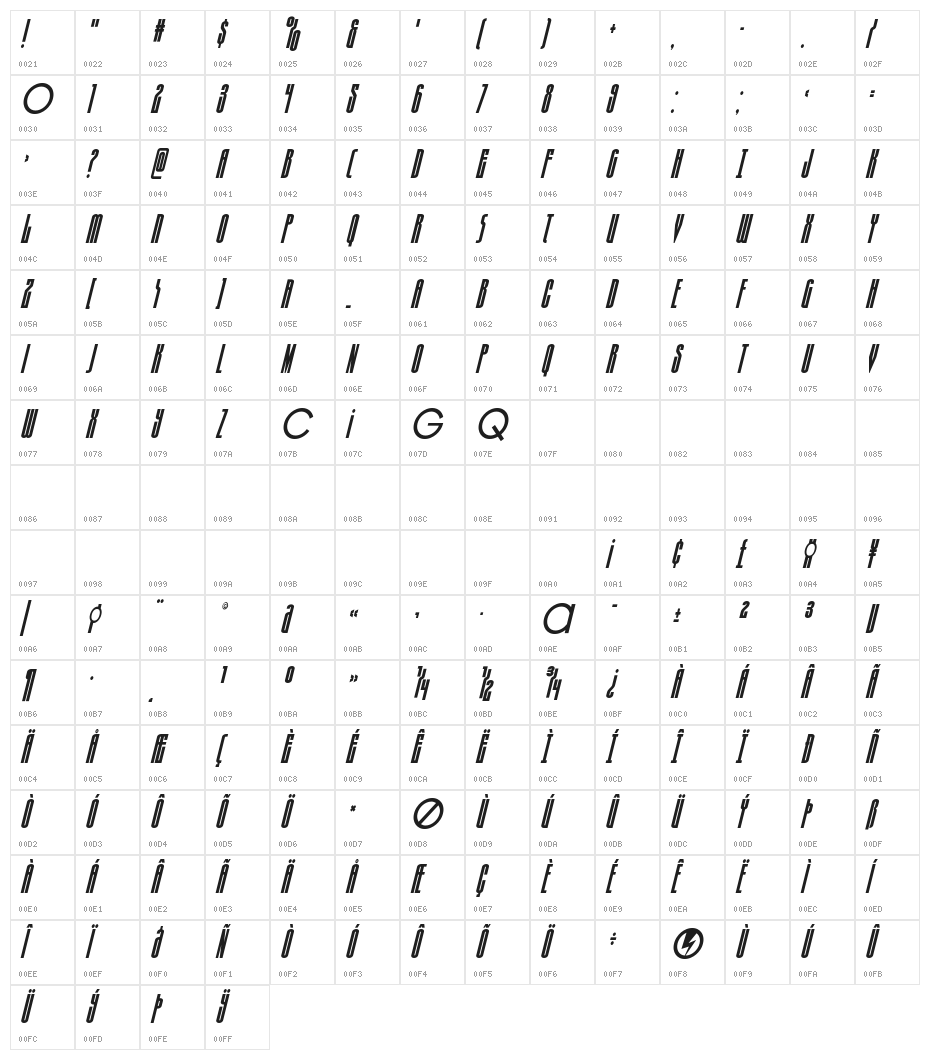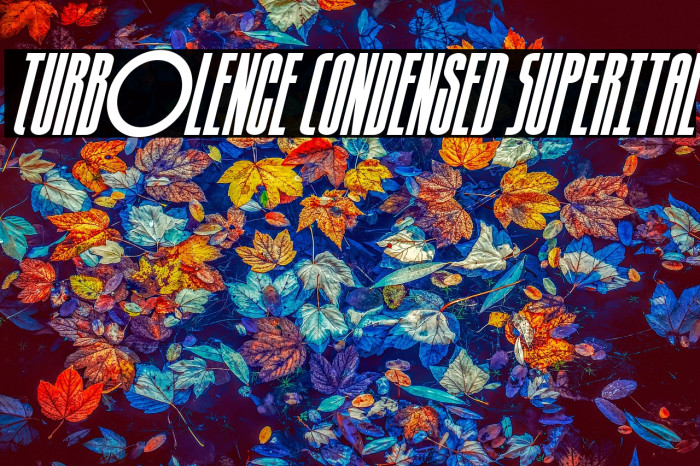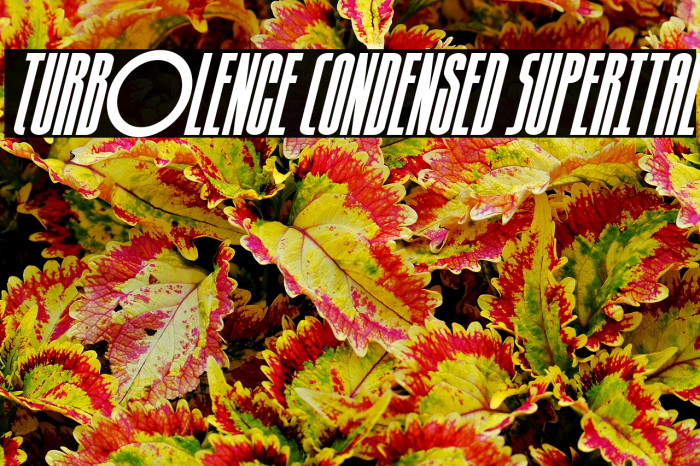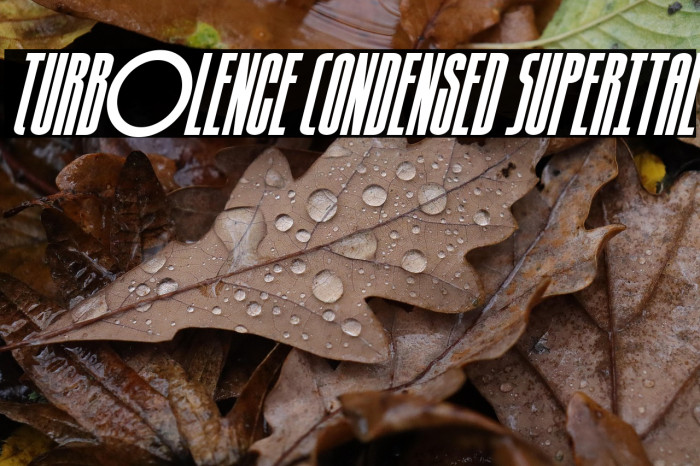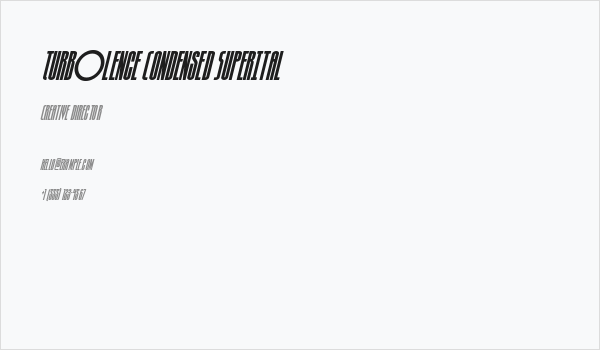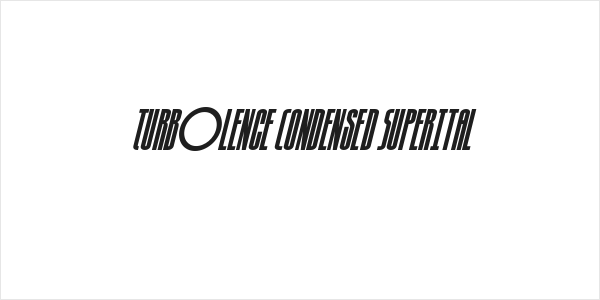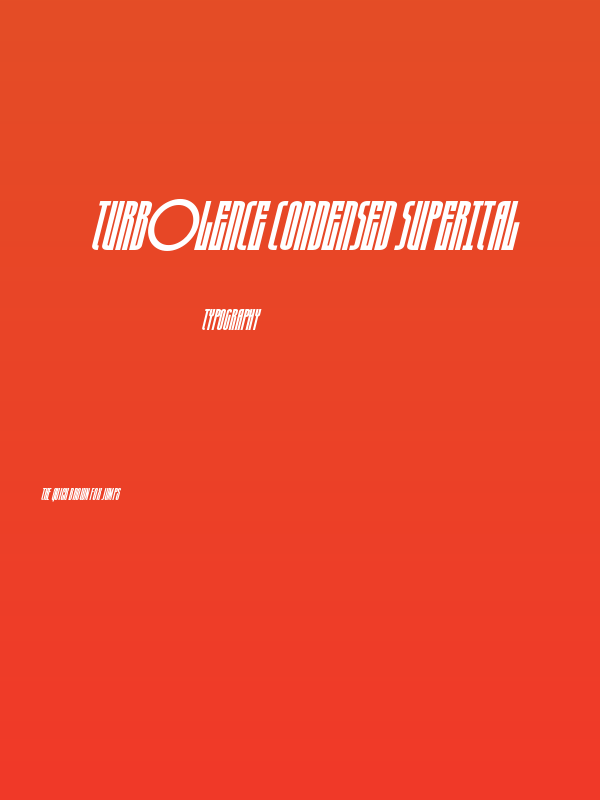
Turb0lence Condensed SuperItal Font
Turb0lence Condensed SuperItal Description
This font features a bold, condensed style with a strong italic slant, giving it a dynamic and energetic appearance. The characters are tightly spaced, enhancing the compact look. The uppercase and lowercase letters maintain a consistent height, contributing to a uniform aesthetic. The numbers and special characters follow the same design principles, ensuring a cohesive overall appearance. The high contrast in stroke thickness adds to the boldness, making it stand out in any design. Its modern and sleek style makes it suitable for projects that require a striking and impactful visual presence.
| Proposed Projects | Ideal for sports branding, dynamic posters, modern advertisements, and edgy editorial designs. |